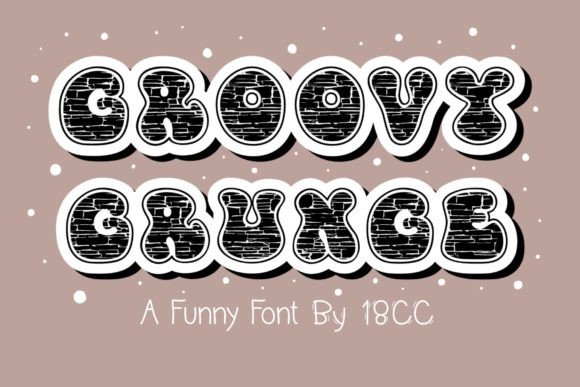
Unleash the Groovy Grunge Spirit Within Your Designs
Journey into the realm of vintage charm and charismatic grit with Groovy Grunge, the display font that breathes life into your creative expressions. Inspired by the bygone era of retro aesthetics, Groovy Grunge offers an eclectic blend of old-school cool and modern flair, making it the perfect companion for your branding, logo designs, social media platforms, and those inspiring DIY projects that ignite your imagination.
With Groovy Grunge, you're not just downloading a font; you're inviting a timeless allure into your design arsenal. This meticulously crafted display font is more than just a collection of letters and symbols; it's a gateway to unlocking a world of creative possibilities. Whether you're a seasoned graphic designer seeking to leave an indelible mark or an enthusiastic entrepreneur looking to elevate your brand's visual identity, Groovy Grunge stands ready to be your trusted ally.
Step into the spotlight and let Groovy Grunge's captivating presence command attention. Its distinctive character, reminiscent of weathered billboards and inked vintage posters, adds a captivating layer of authenticity to your designs. Imagine your logos radiating an aura of retro elegance, your branding exuding a sense of nostalgic charm, and your social media posts bursting with a unique personality that sets you apart from the ordinary.
But Groovy Grunge's versatility extends far beyond the digital realm. Its inherent charm seamlessly translates into the physical world, making it the ideal partner for your crafty DIY endeavors. Envision handmade greeting cards adorned with Groovy Grunge's distinctive lettering, personalized mugs showcasing your unique style, or upcycled furniture pieces transformed into vintage masterpieces. The possibilities are endless, limited only by your imagination's boundless creativity.